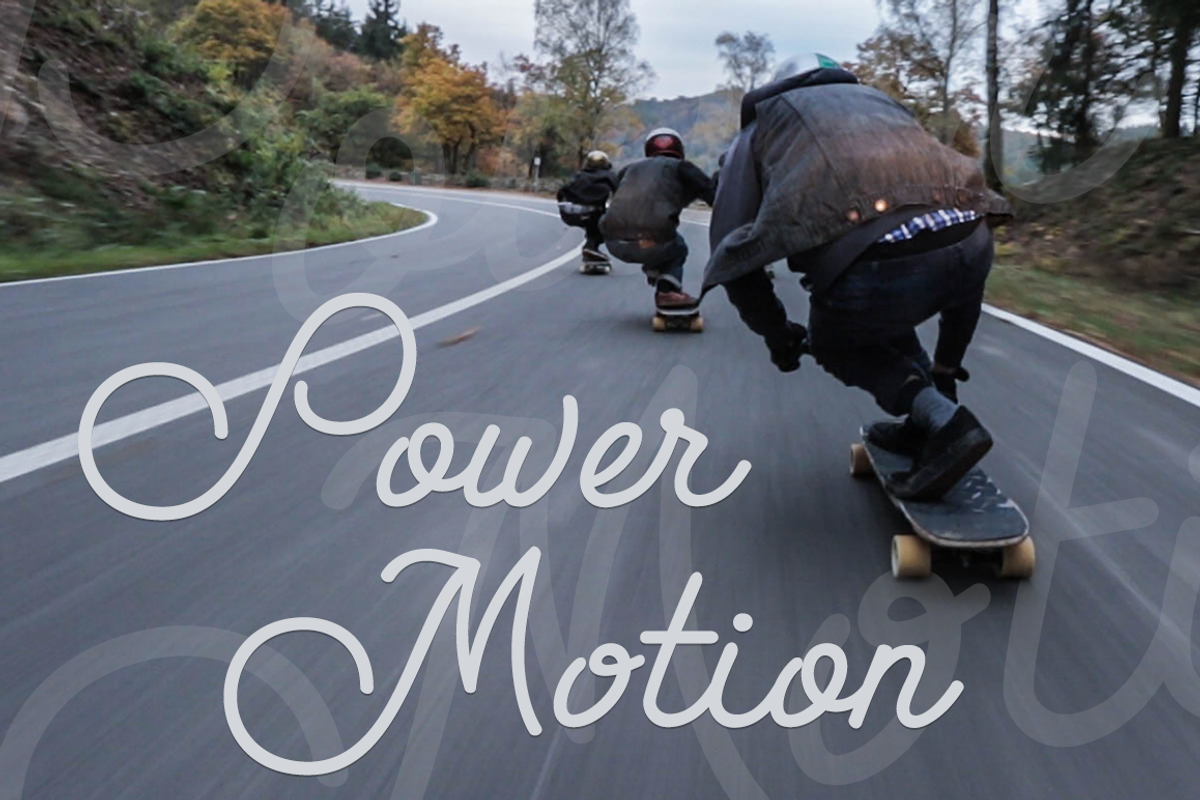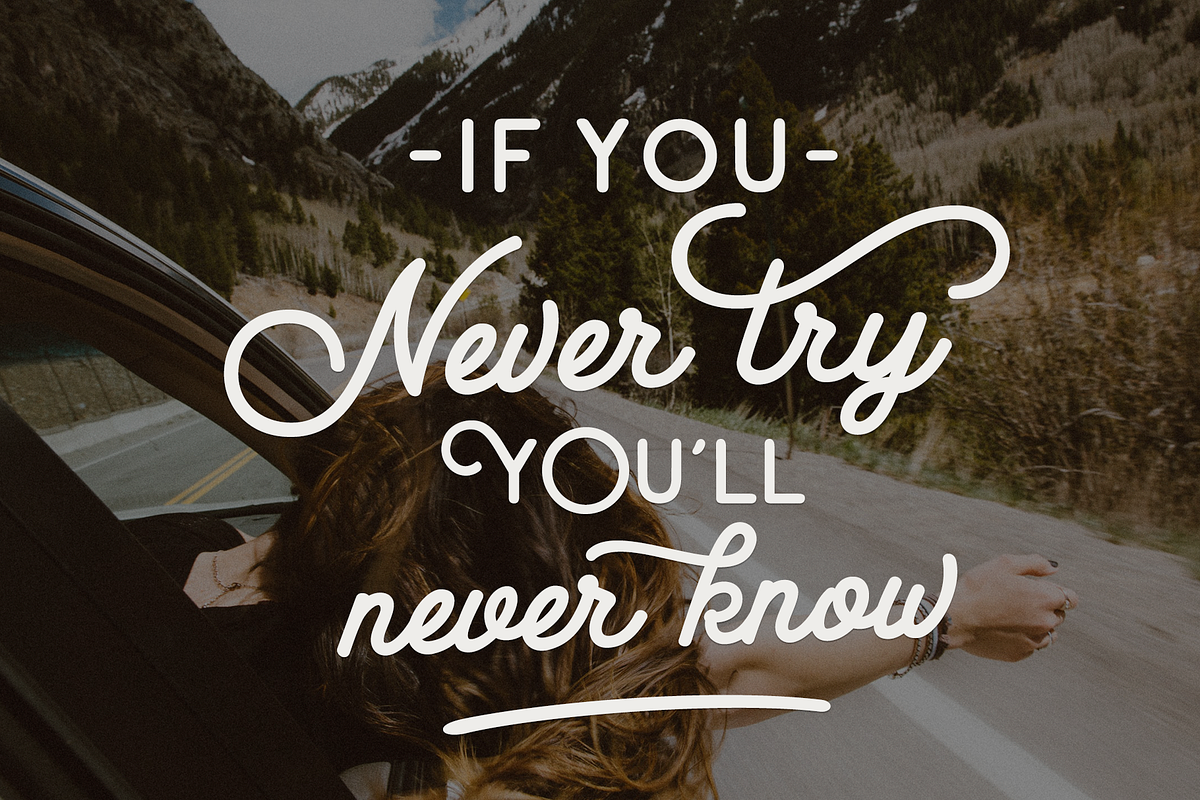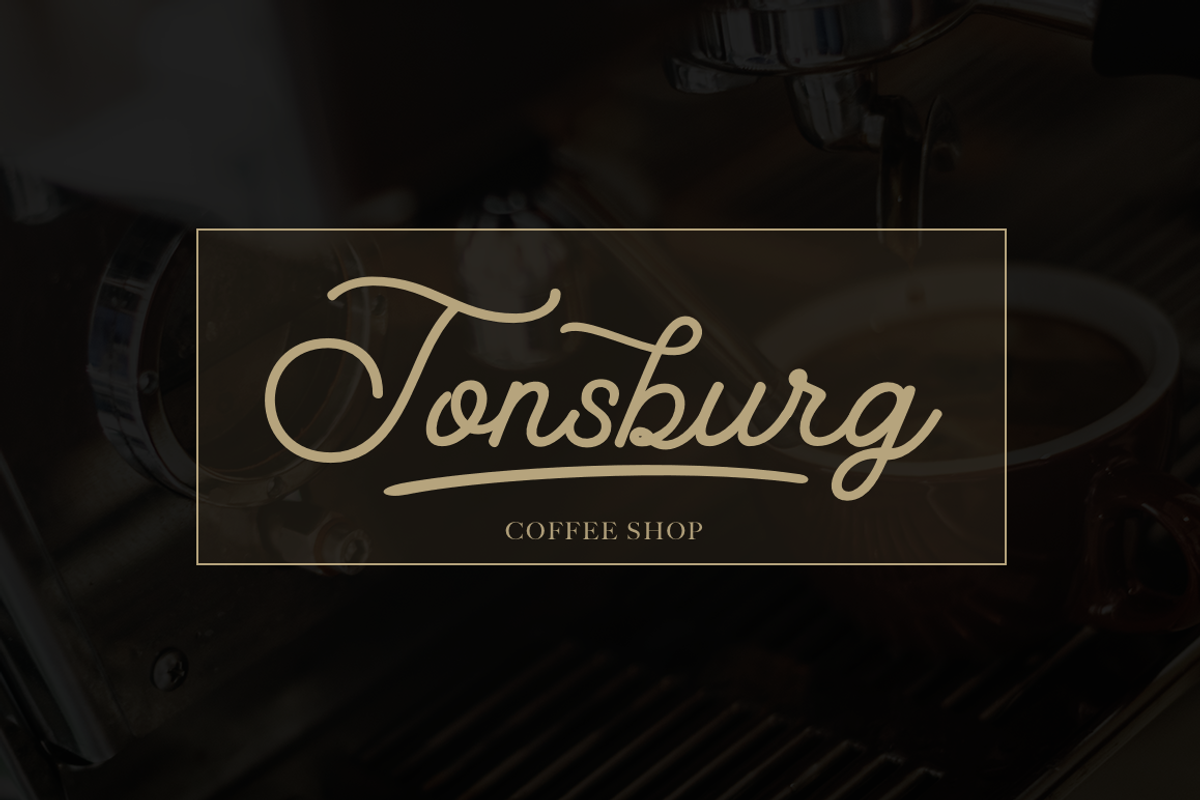
Road Crew
Road Crew typeface- a new fresh handmade typeface.
Update! Now multi-language support, symbols, numbers, fractions and a new Bold style!!!
This font is ideal for branding and decorate your any project, are perfect for wedding invitation or your blog. Also with their help, you can create a logo or beautiful frame for your home. Or just use for your small business, book covers, stationery, marketing, magazines and more. Also for you, I have prepared many alternates so that you can make your project unique. All the characters have a PUA encoding. This font is easy to use and has OpenType features.